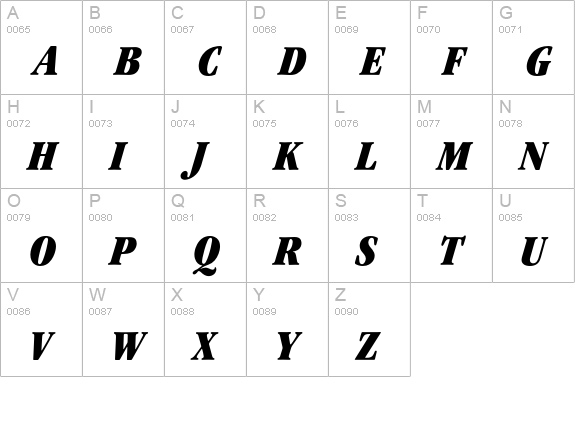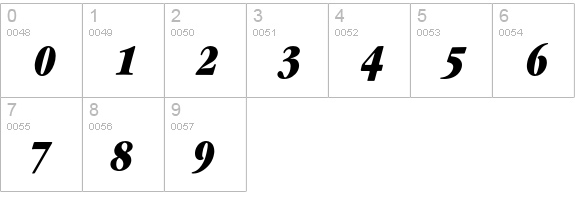
Garamond* Condensed Ultra Italic Font Details
Garamond* Condensed Ultra Italic is an extreme-weight, display, condensed-width, italic variant in the Garamond* typeface family \xE2\x80\x94 well suited to extreme display use where maximum visual weight is required.
Garamond Condensed Ultra Italic is a stunning and elegant font that exudes sophistication and style. Its sleek and slender design gives off a sense of modernity while still maintaining a timeless appeal. The italicized slant adds a touch of flair and drama to any text, making it perfect for adding emphasis or creating eye-catching headlines. This font is perfect for projects that require a touch of class and elegance, such as wedding invitations, upscale branding materials, or editorial layouts. Its condensed form allows for a more compact and efficient use of space, making it ideal for projects with limited room for text. Best of all, Garamond Condensed Ultra Italic is available for free download at FontsMarket.com. This means you can easily access this beautiful font and use it in your projects without any cost. Add a touch of sophistication and style to your designs with Garamond Condensed Ultra Italic today!